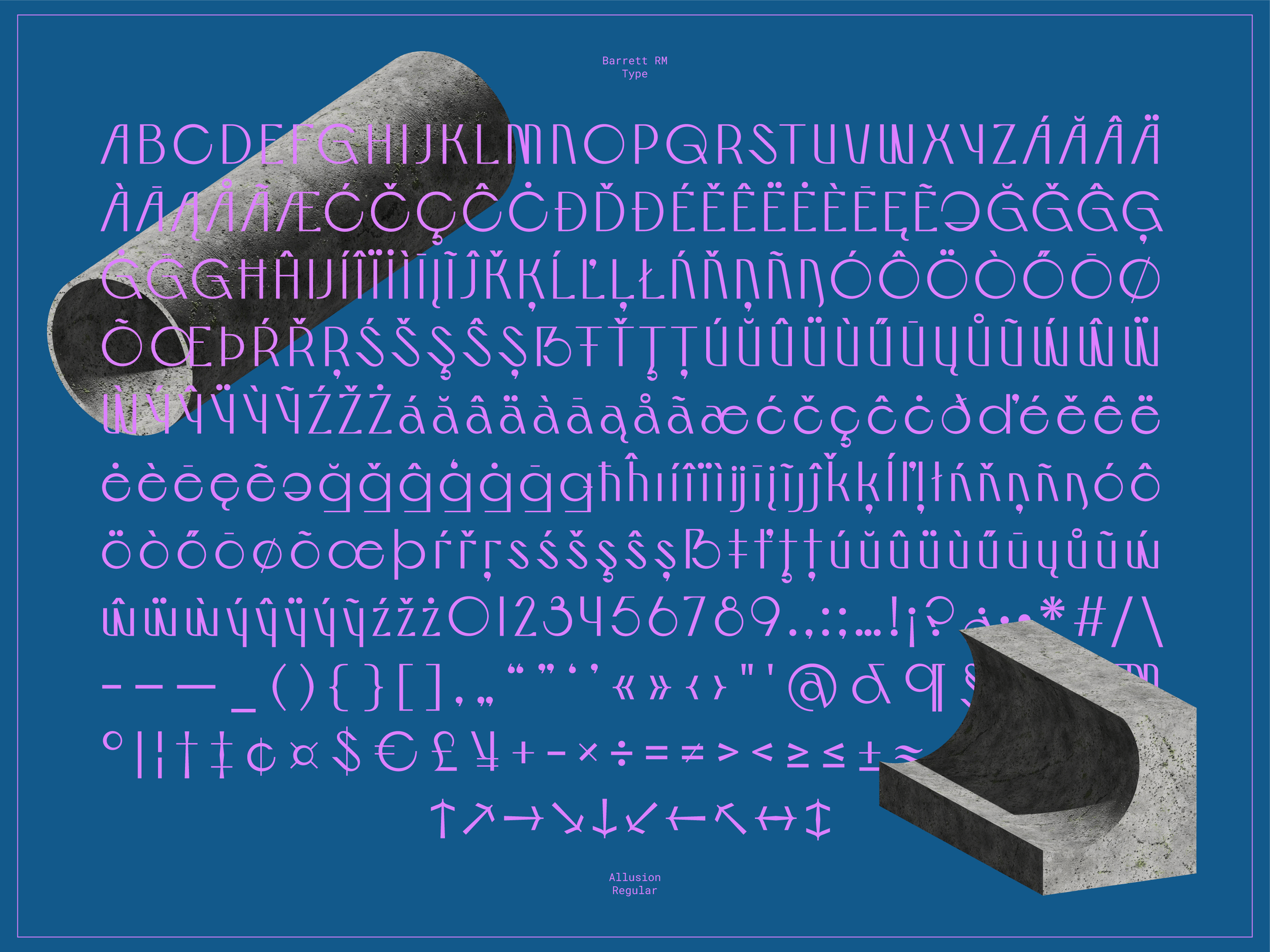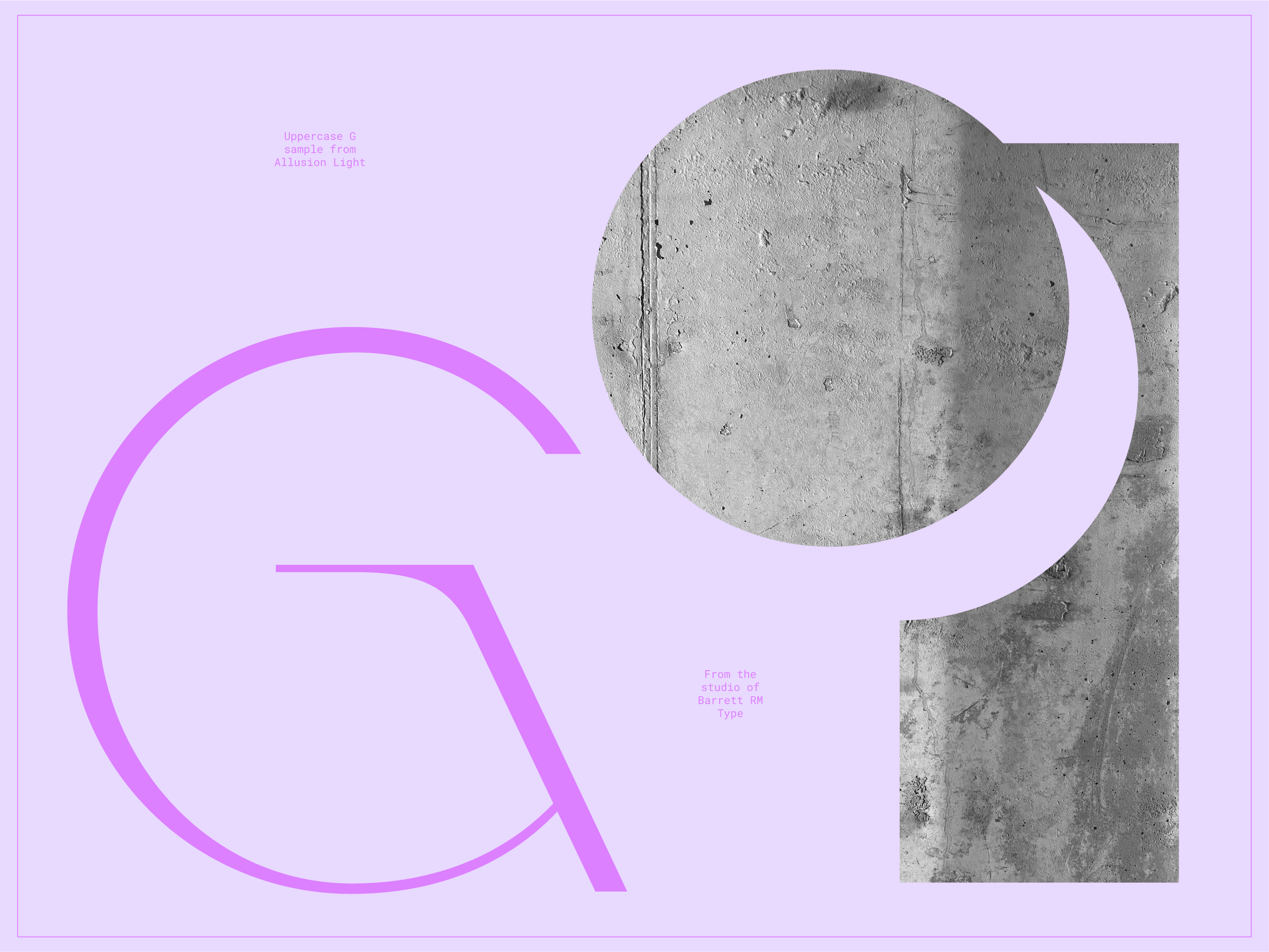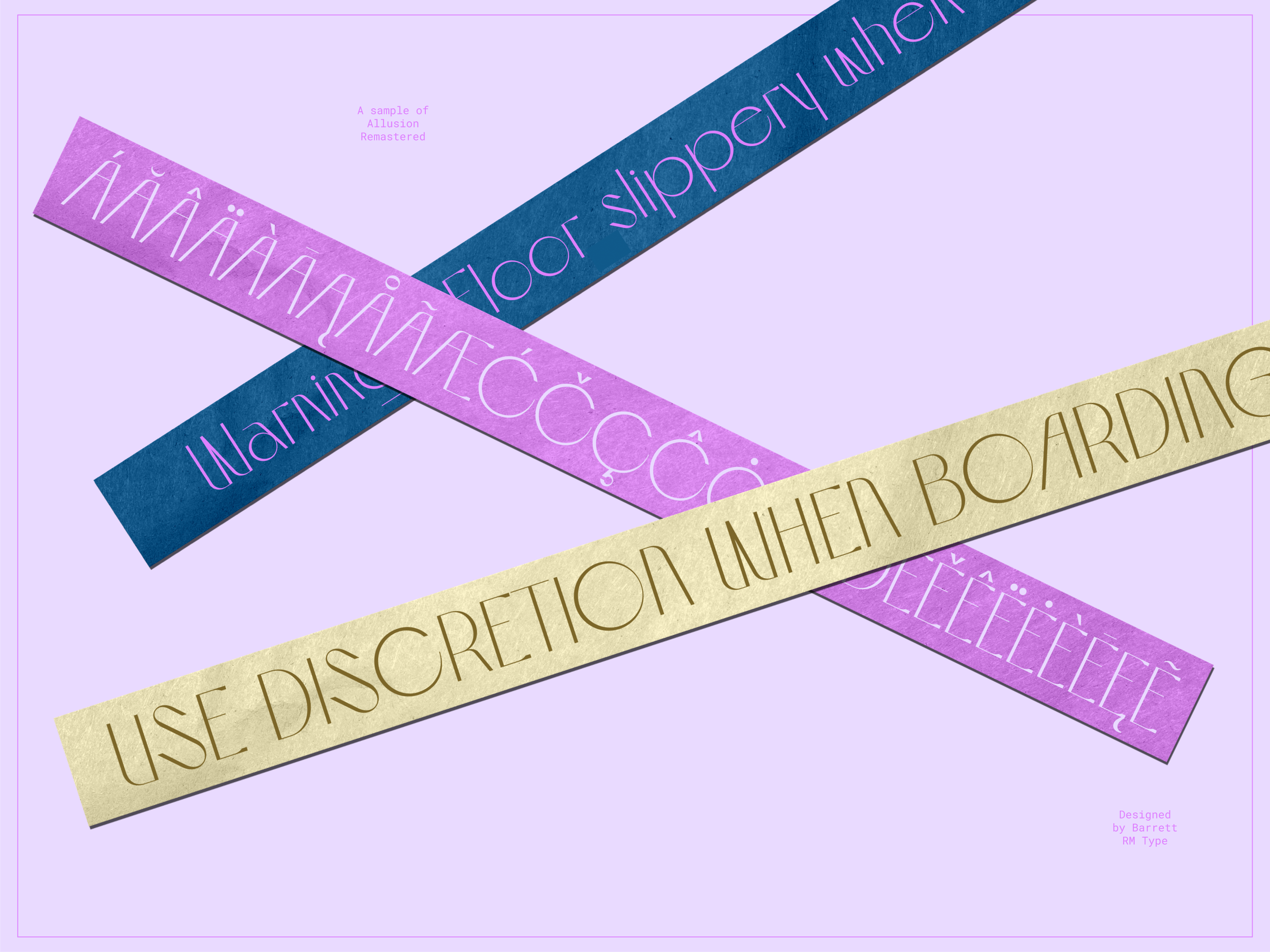
Allusion Display has been redrawn from scratch and now comes in two weights! Allusion is a clean, versatile art deco display typeface inspired by the Urban landscapes of modern America. Taking visual cues from the architecture of New York City’s subway system, Allusion’s geometric letterforms seek to capture the essence of early twentieth-century American design.